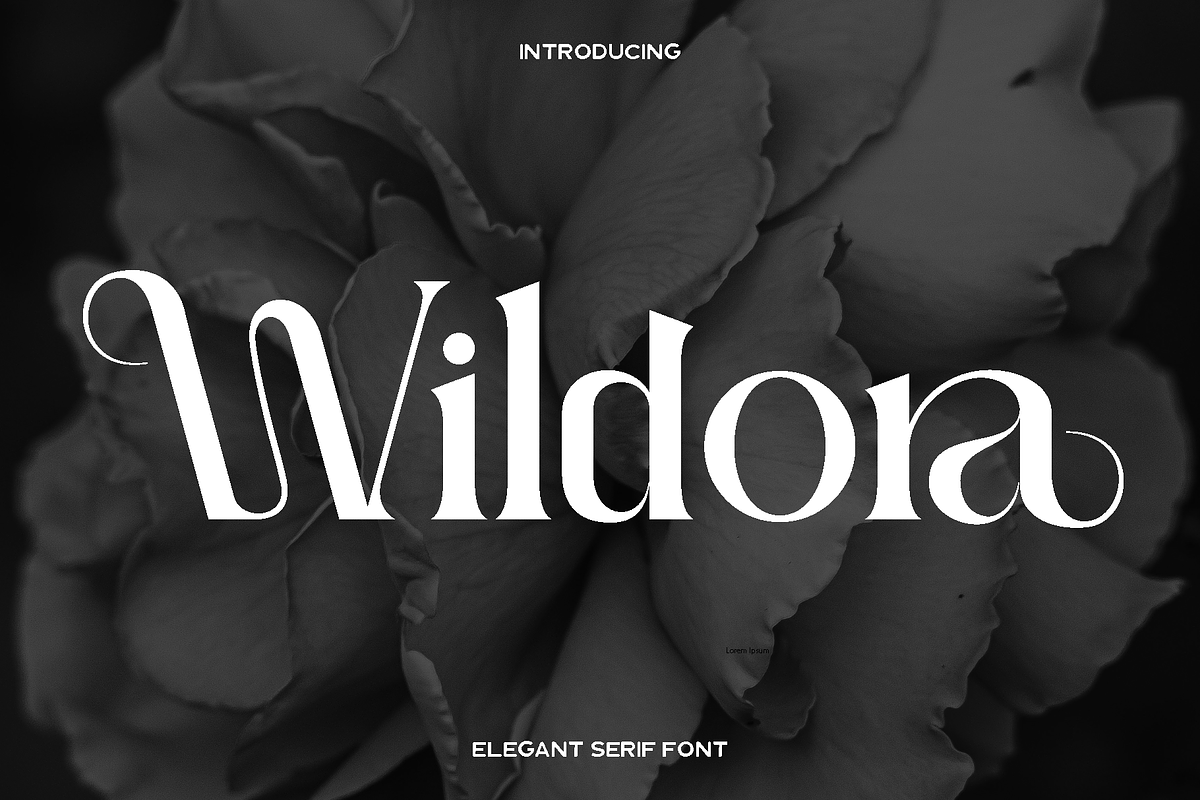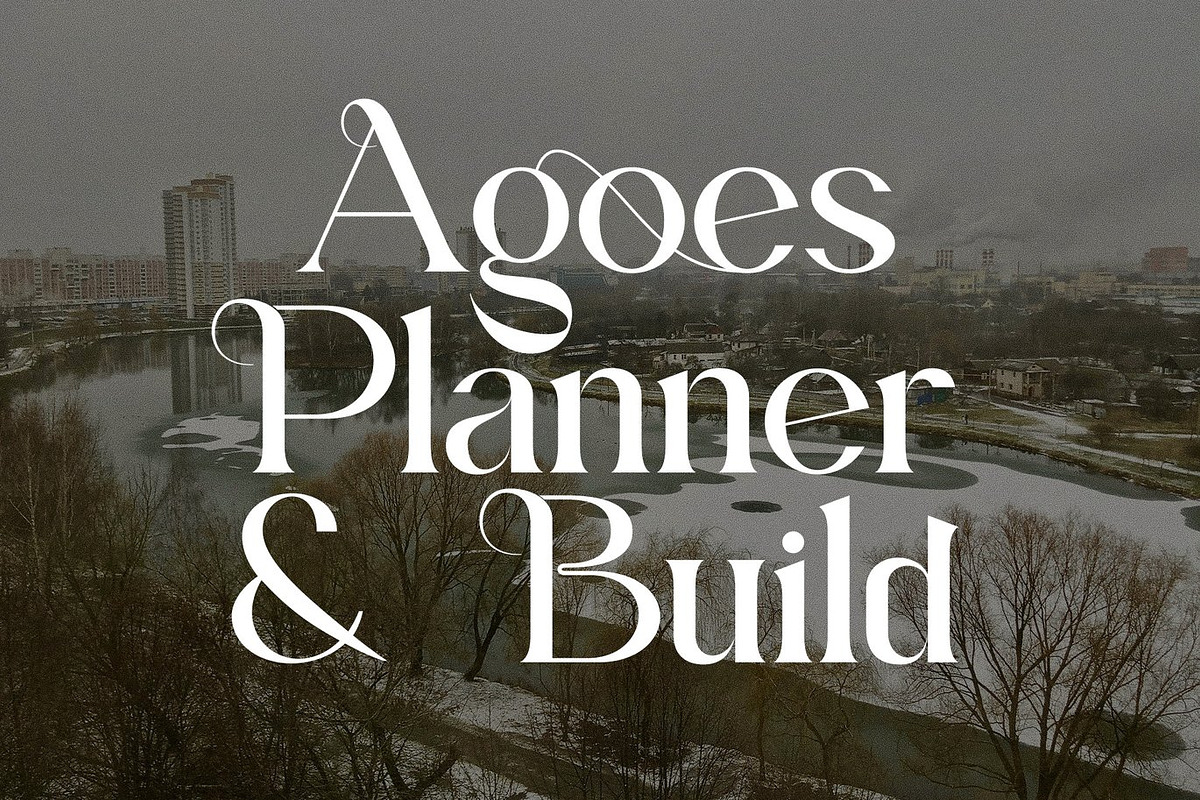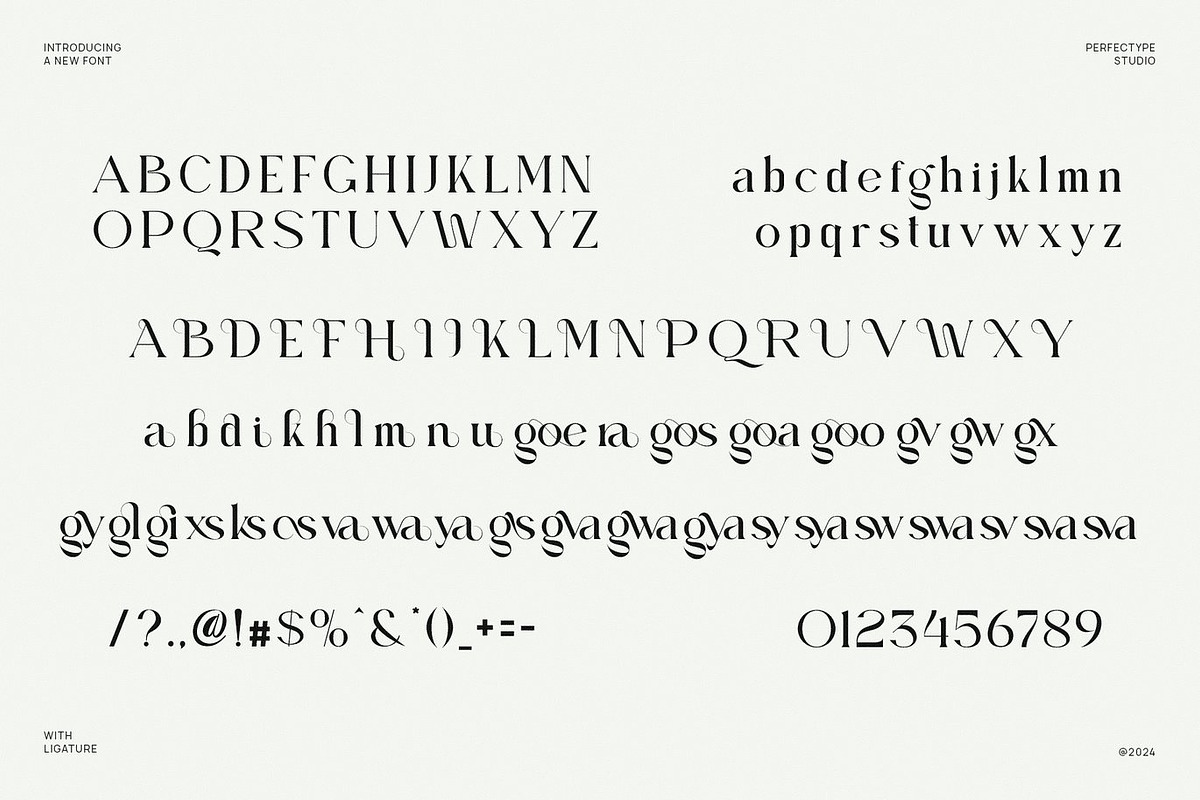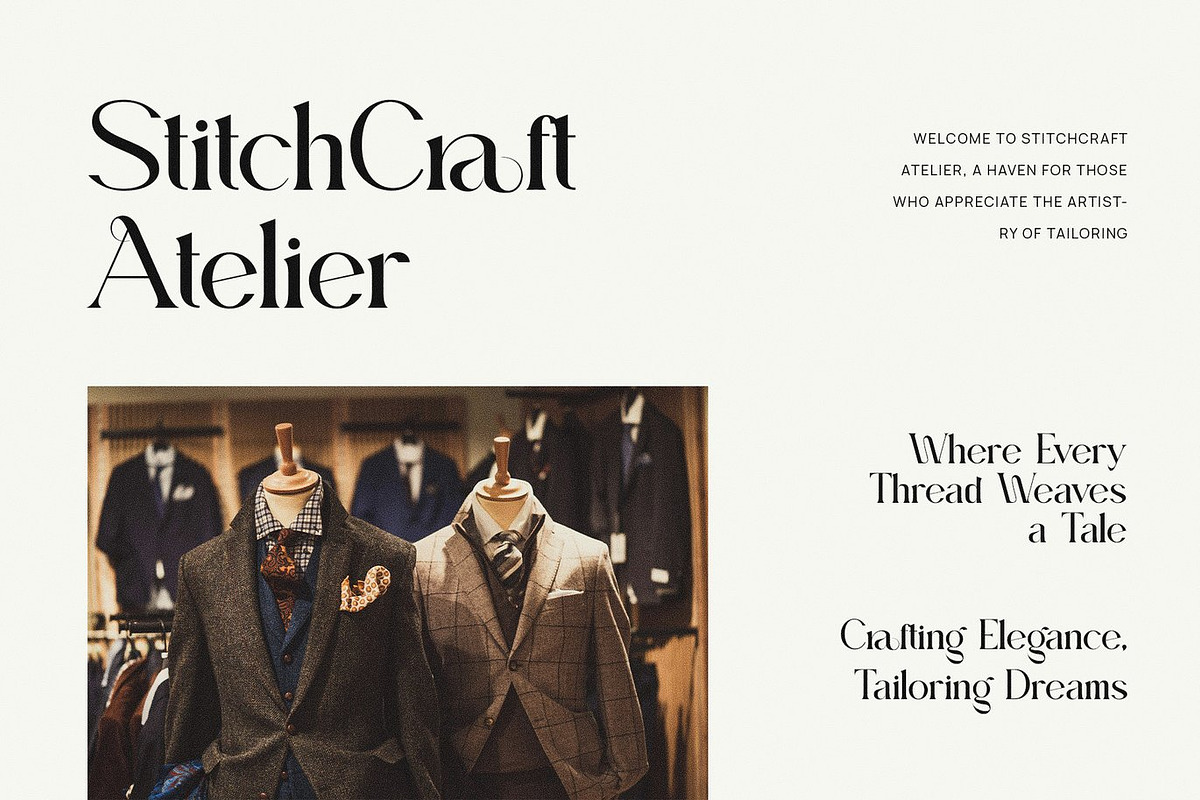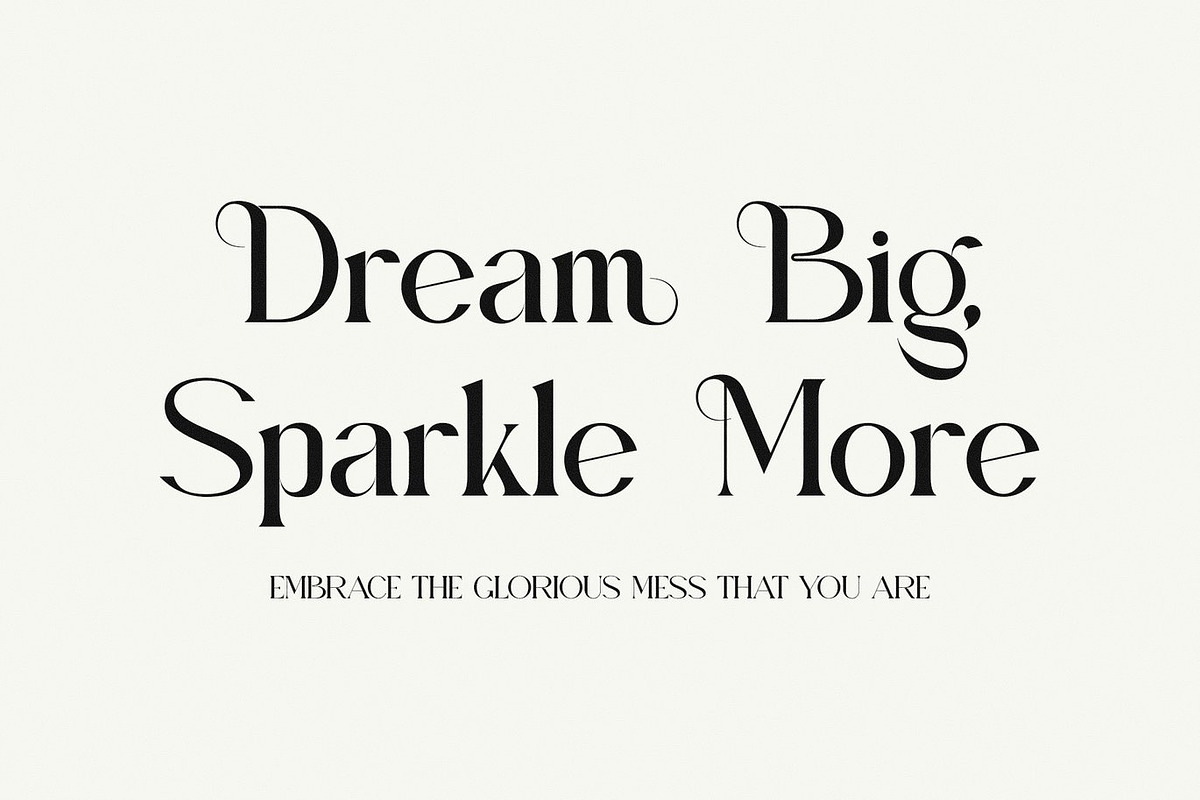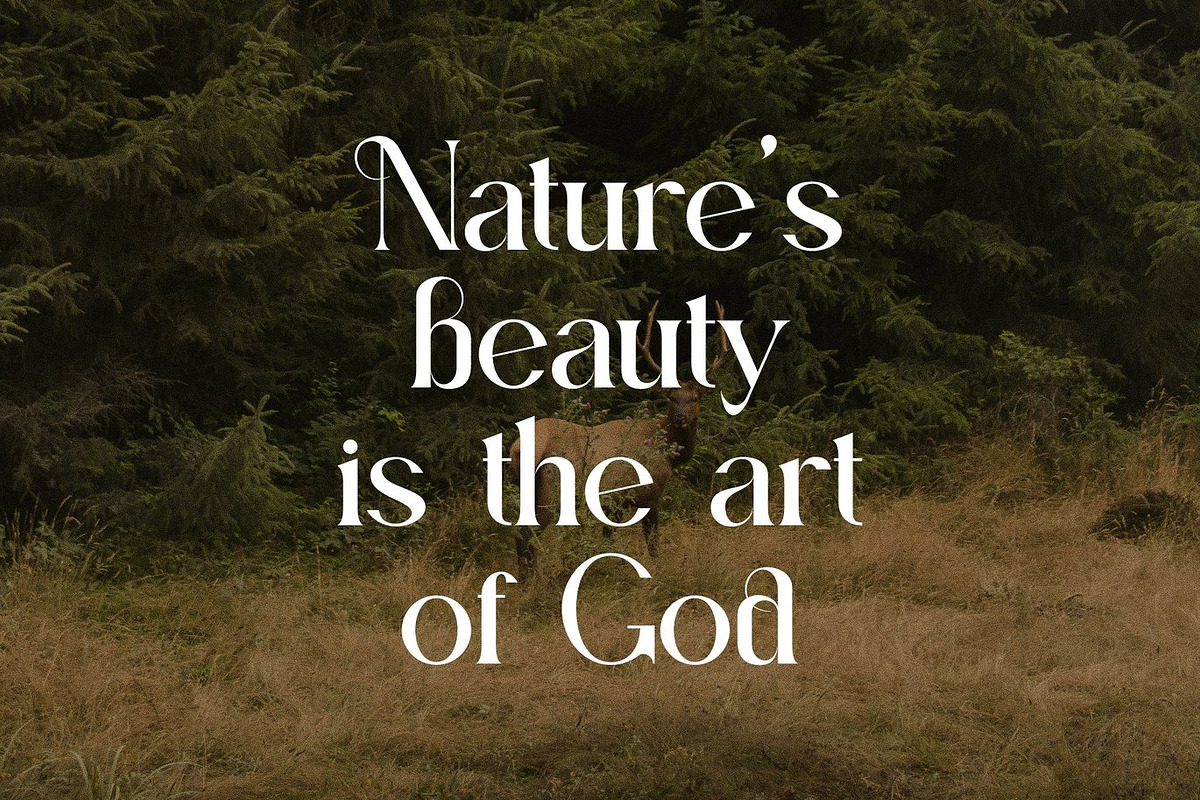
Wildora - Elegant Modern Serif
Wildora is a refined and elegant serif font created to express beauty, clarity, and modern sophistication. Designed with a perfect balance of classic serif structure and contemporary styling, Wildora delivers a graceful personality that feels luxurious yet approachable. Its carefully shaped letterforms and smooth curves create a timeless look that enhances visual harmony and readability in every design.
This font shines in branding and logo design where elegance and trust are essential. Wildora is an excellent choice for wedding designs, luxury invitations, fashion branding, product packaging, labels, stationery, photography watermarks, and refined social media visuals. Its high level of readability allows it to perform beautifully in both large headlines and detailed text, making it a versatile asset for professional and creative projects alike.
Wildora feels confident, classy, and polished. It is designed for creators who want to communicate style and quality without overwhelming the design. Whether used in print or digital media, Wildora brings a calm and sophisticated tone that elevates your work and leaves a lasting impression.
Wildora Elegant Serif Font Features:
• Elegant and modern serif characters
• Numerals and punctuation included
• Accented characters for Western European languages
• High readability for versatile use